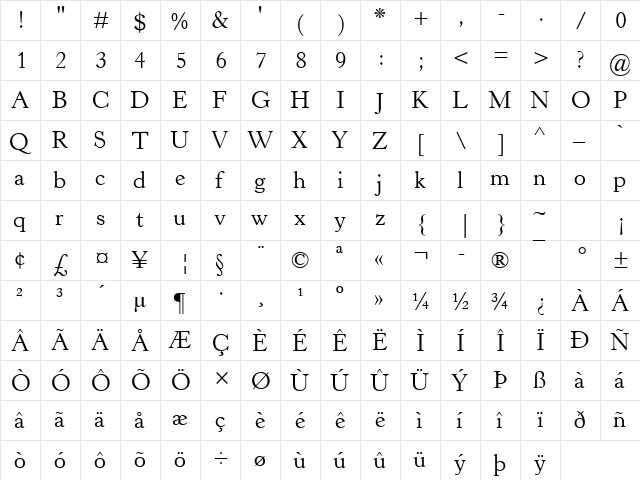
Horley Old Style MT Regular
| Foundry | Agfa Monotype Corporation |
Design Context for Horley Old Style MT Typeface
Horley Old Style MT takes a measured approach to typography — its balanced proportions and neutral character make it a reliable workhorse for both digital and print work.